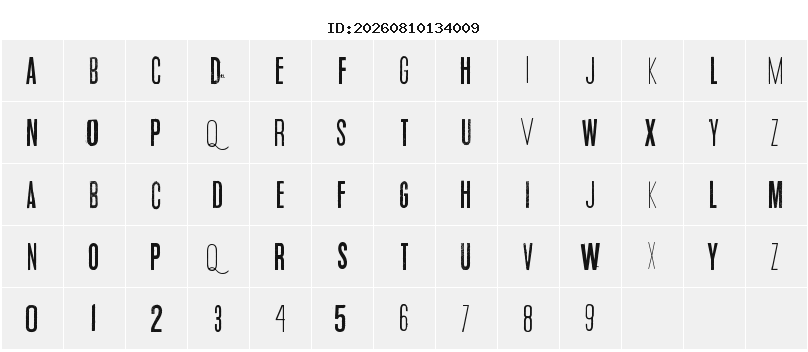
• Font Name: Quiet Zoo
• Designer: junkohanhero
About Quiet Zoo.ttf
Quiet Zoo.ttf is a modern, elegant sans-serif font designed for ultimate readability and visual harmony. Perfect for branding, headlines, web design, and print materials.